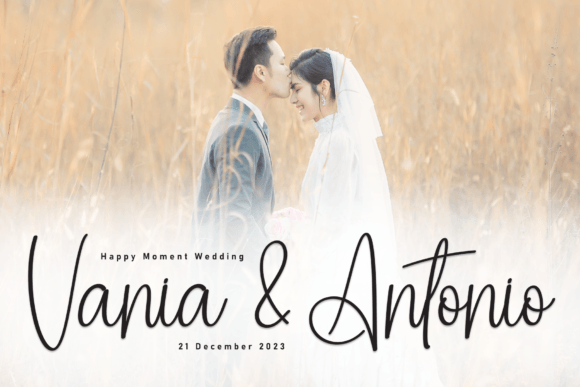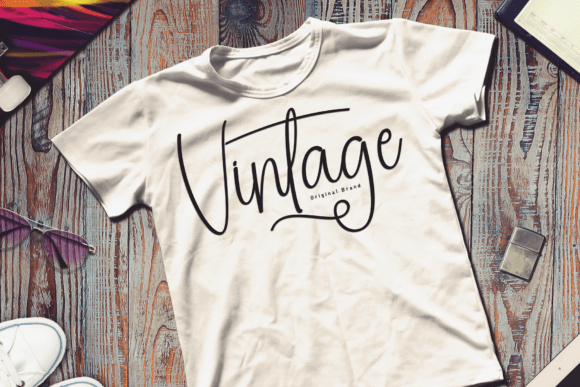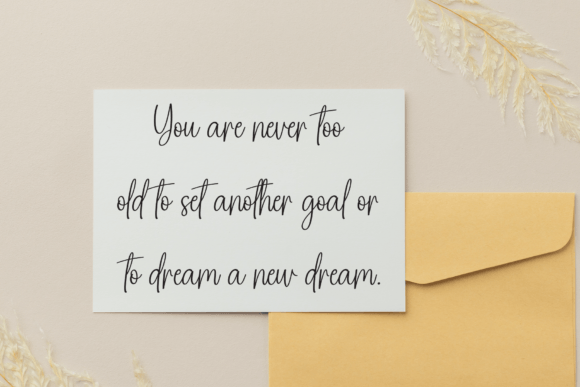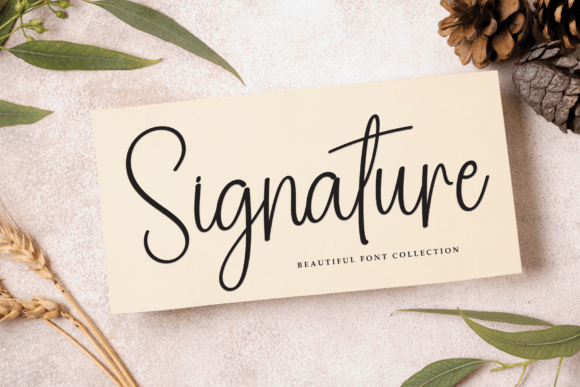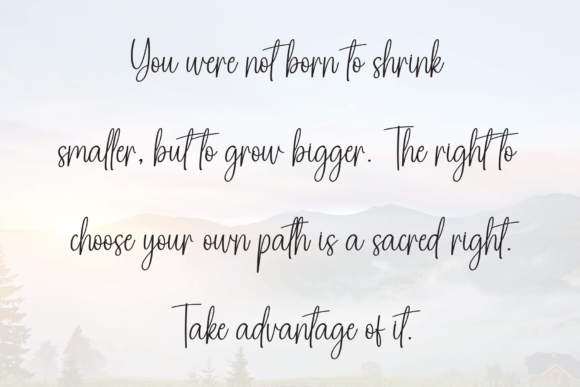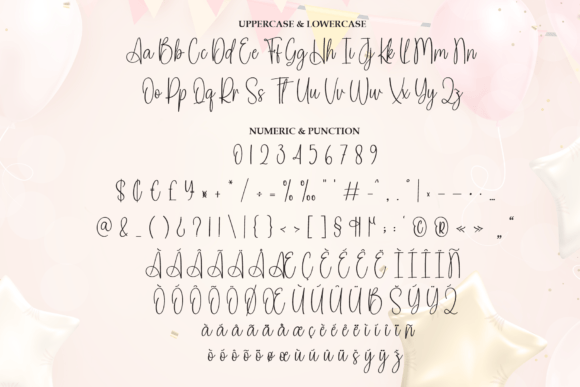
The Perfect Font for a Special Day
Have you ever been brainstorming ideas for a birthday card or a wedding invitation, only to find yourself stuck on the perfect font? The moment of creative blockage is a familiar one for designers, but what if I told you there’s a font that can solve this problem in an instant?
Enter the Birthday Font, a sweet and friendly handwritten font that adds a lovely touch to any design. Its cute and versatile nature makes it perfect for writing cards, invitations, and other designs that require a personal touch. As a designer, you know how valuable it is to have a font that can convey the right emotions and tone, and the Birthday Font is no exception. Whether you’re designing a birthday party invitation or a wedding card, this font is sure to make your design stand out.
Birthday Font Key Features
- Unique Characteristics: The Birthday Font features bold, playful, and celebratory lettering, making it perfect for birthday invitations, greeting cards, and party decorations.
Birthday Font Review
I recently had the chance to work with the Birthday Font, and I must say it’s a mixed bag. Here are my thoughts.
- The Birthday Font is perfect for, well, birthday-related designs. The playful and colorful vibe it brings is exactly what you need to make a child’s birthday card stand out.
- The font is highly customizable, with a wide range of colors and effects to choose from. This makes it easy to match the font with your design’s overall aesthetic.
- The font is also surprisingly legible, even at smaller sizes. This is a big plus when working on smaller projects or when the font will be used in a busy design.
- The Birthday Font can feel a bit too playful or childish for some designs. If you’re looking for a more professional or sophisticated look, this font might not be the best choice.
- The font’s customization options can also be overwhelming, especially for those who are new to font design. It’s easy to get lost in the sea of options.
Overall, I’d say the Birthday Font is a solid choice for the right project. If you’re looking for a fun and playful font for a birthday-related design, this is definitely worth considering. However, if you’re looking for something more professional or sophisticated, you might want to look elsewhere.
The Birthday Font is ideal for creating custom birthday invitations, party decorations, and social media graphics. To get the most out of it, use it in combination with bright colors and festive graphics. Some popular use cases include:
- Birthday invitations and party decorations
- Social media graphics and posts
- Custom party banners and signs